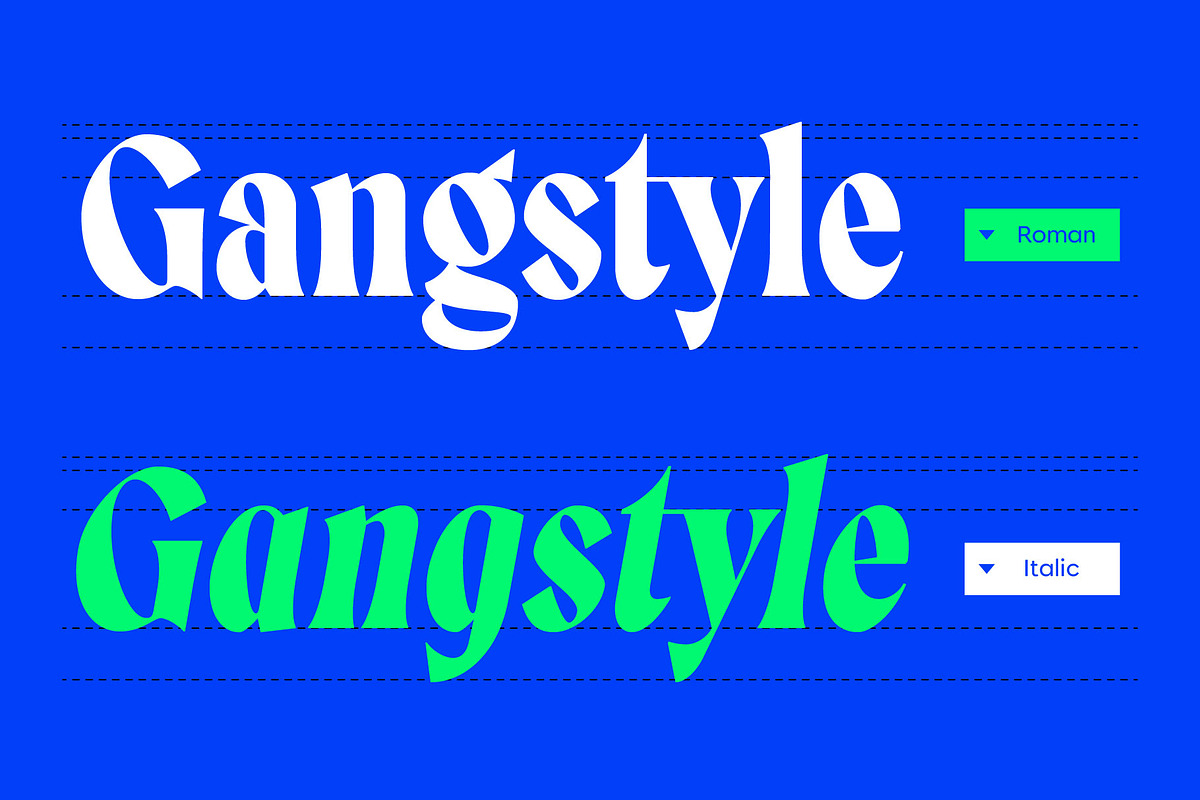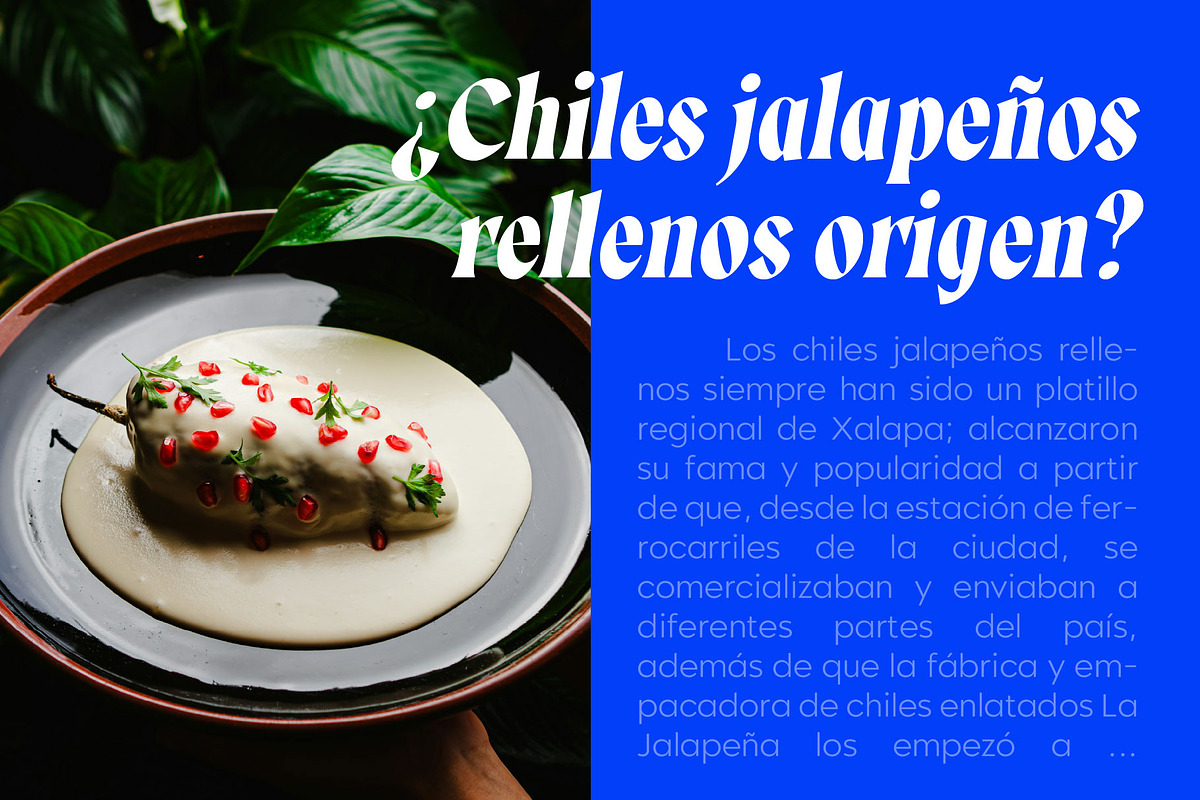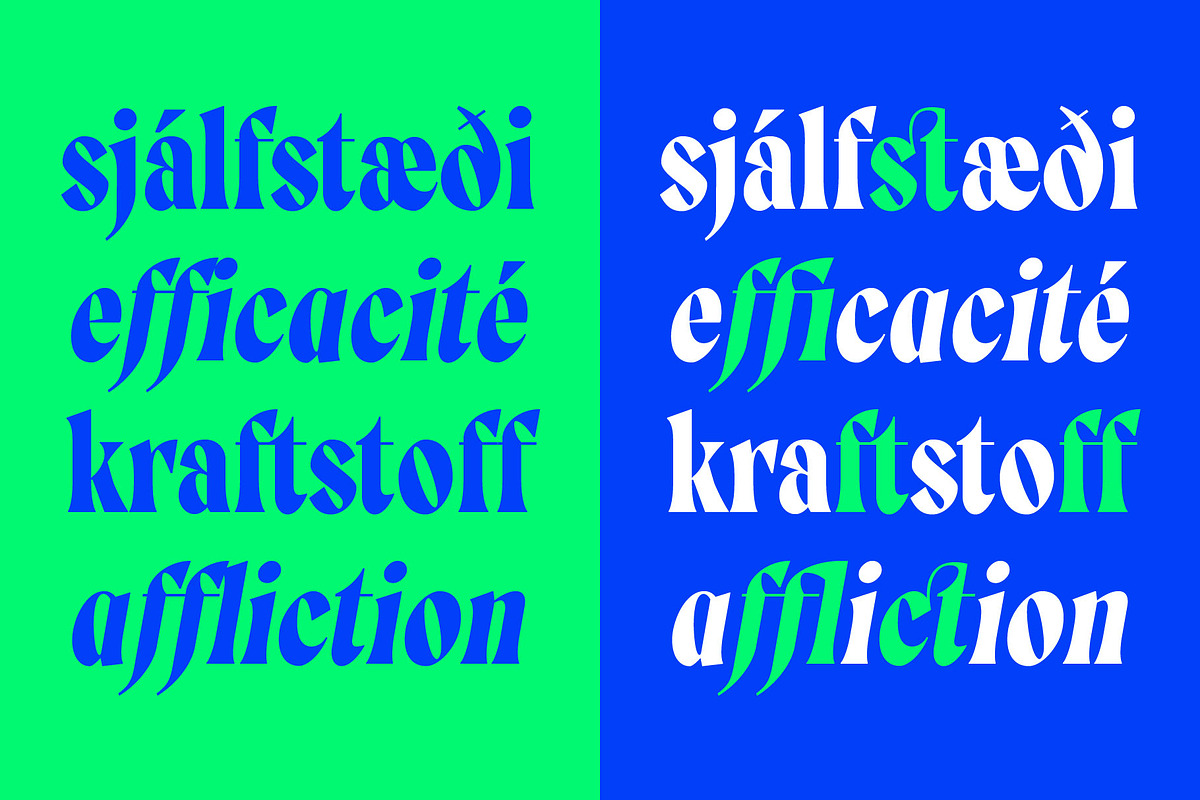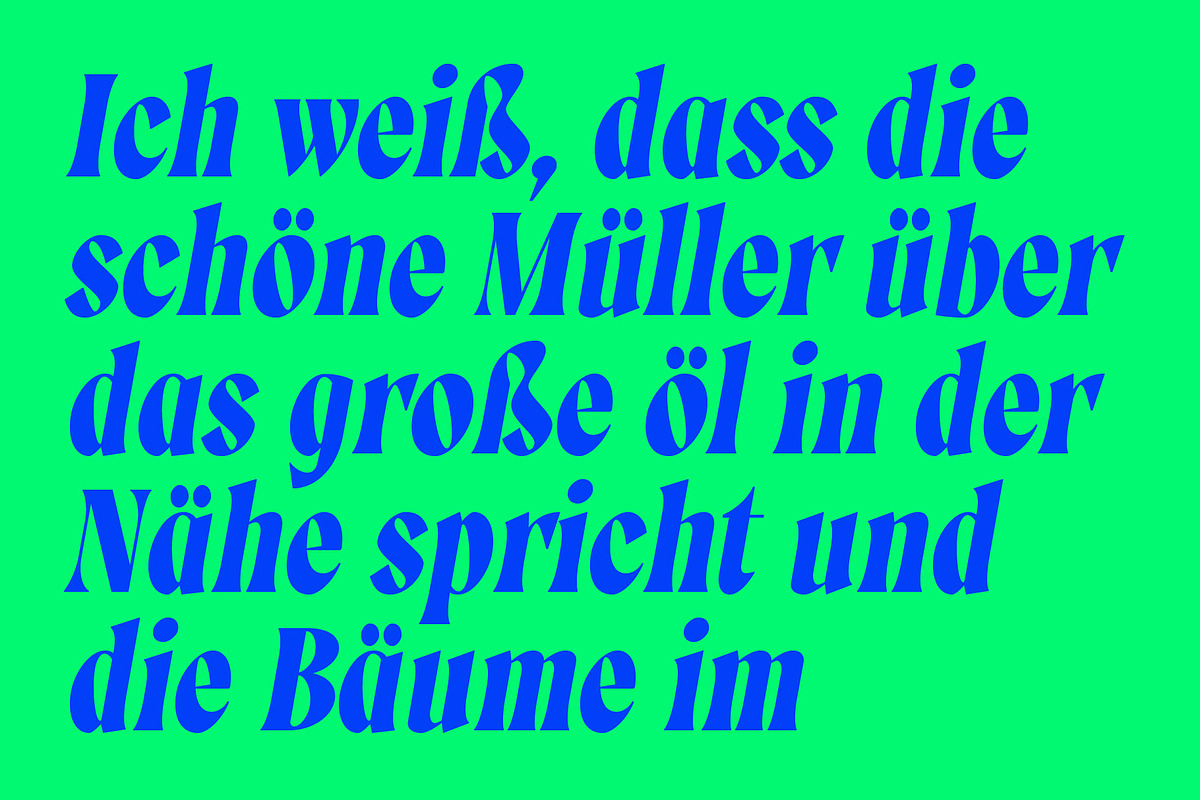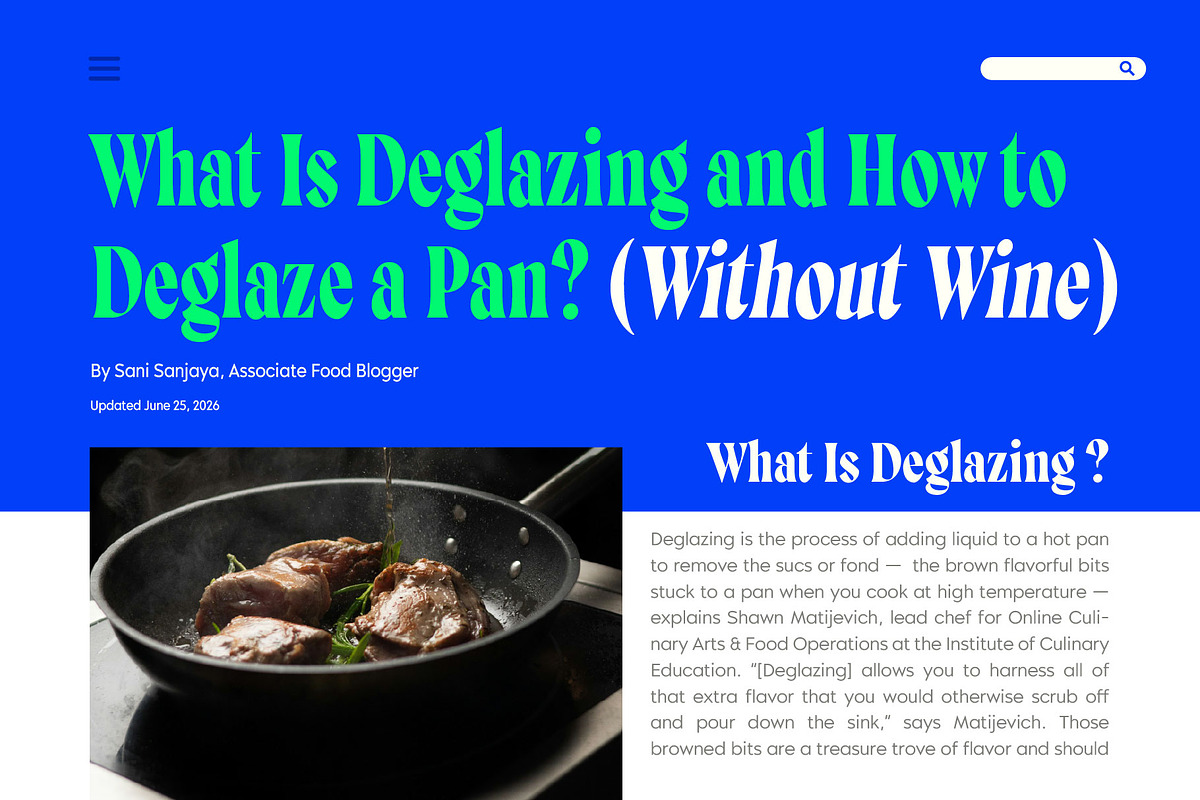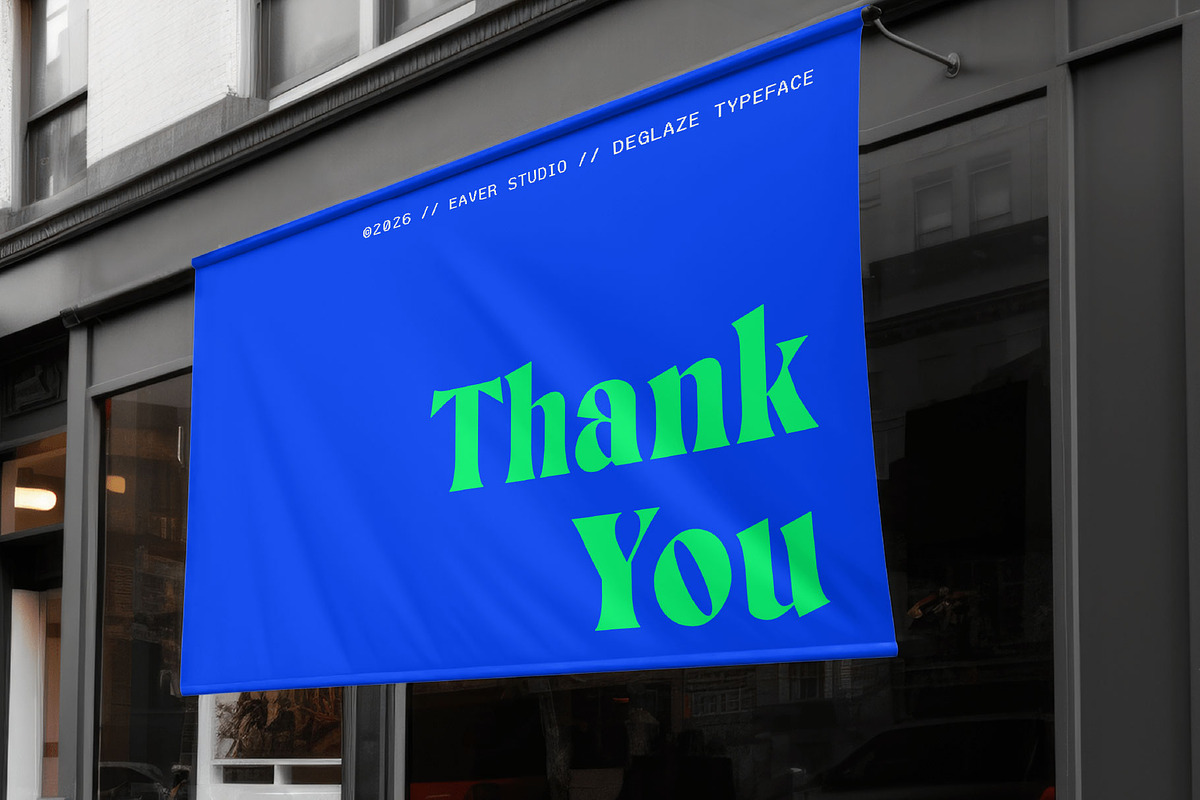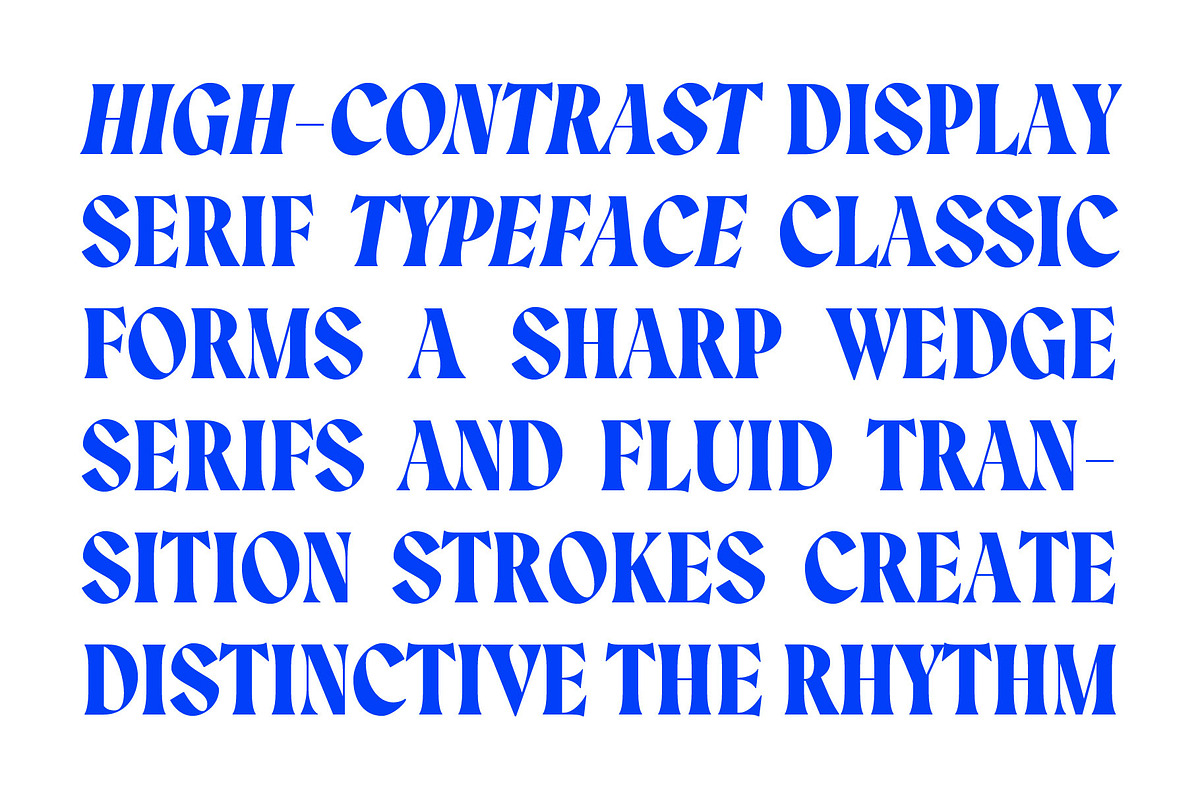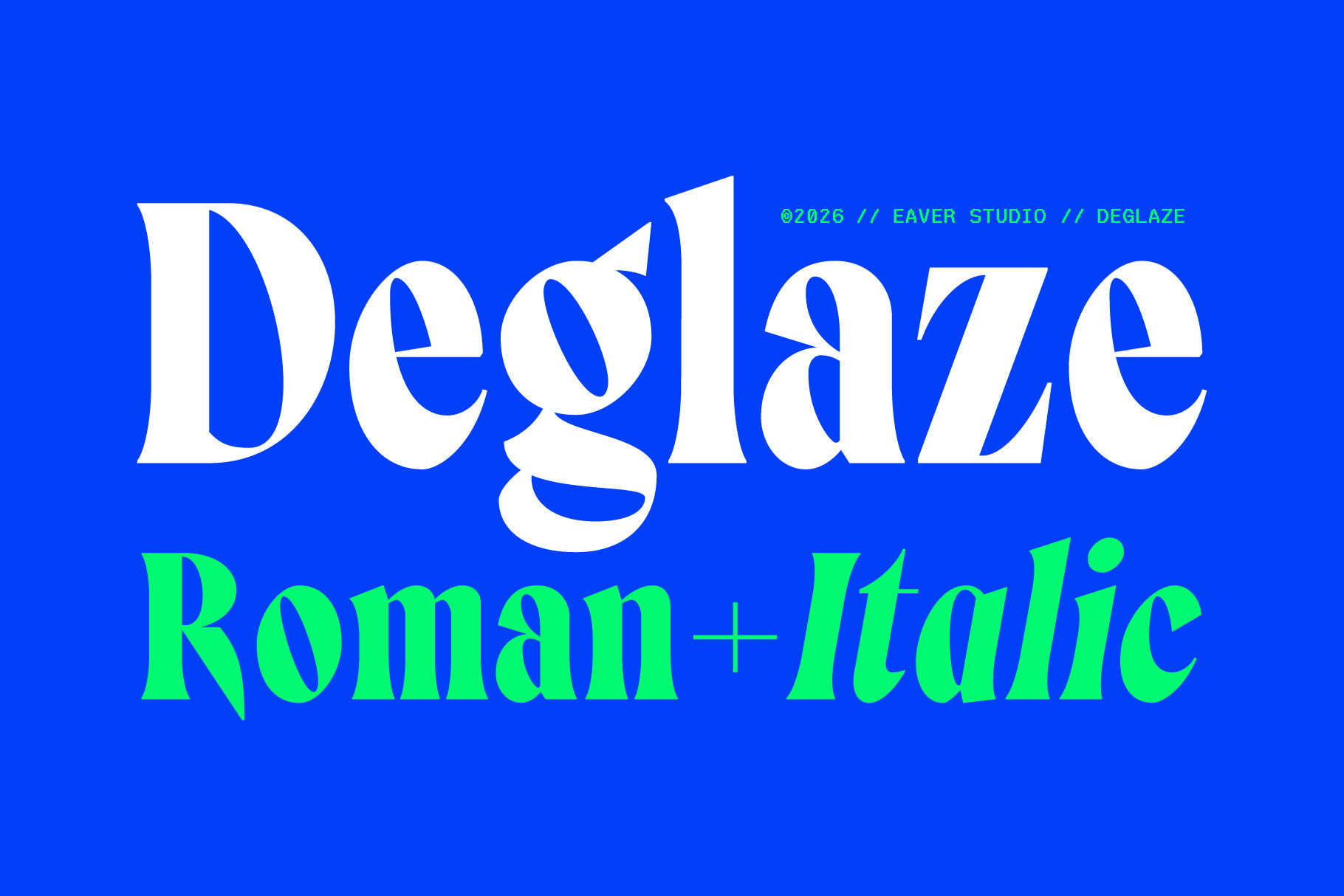
Deglaze | High Contrast Typeface
In culinary terminology, deglazing is the process of releasing the concentrated flavors left behind in a pan after cooking. Inspired by this idea, Deglaze explores the typographic equivalent of revealing hidden richness beneath the surface. The design draws from historical serif traditions, extracting and refining their essential forms into a new visual expression. Just as deglazing transforms residue into depth and complexity, Deglaze transforms typographic heritage into a contemporary display typeface filled with contrast, character, and flavor.